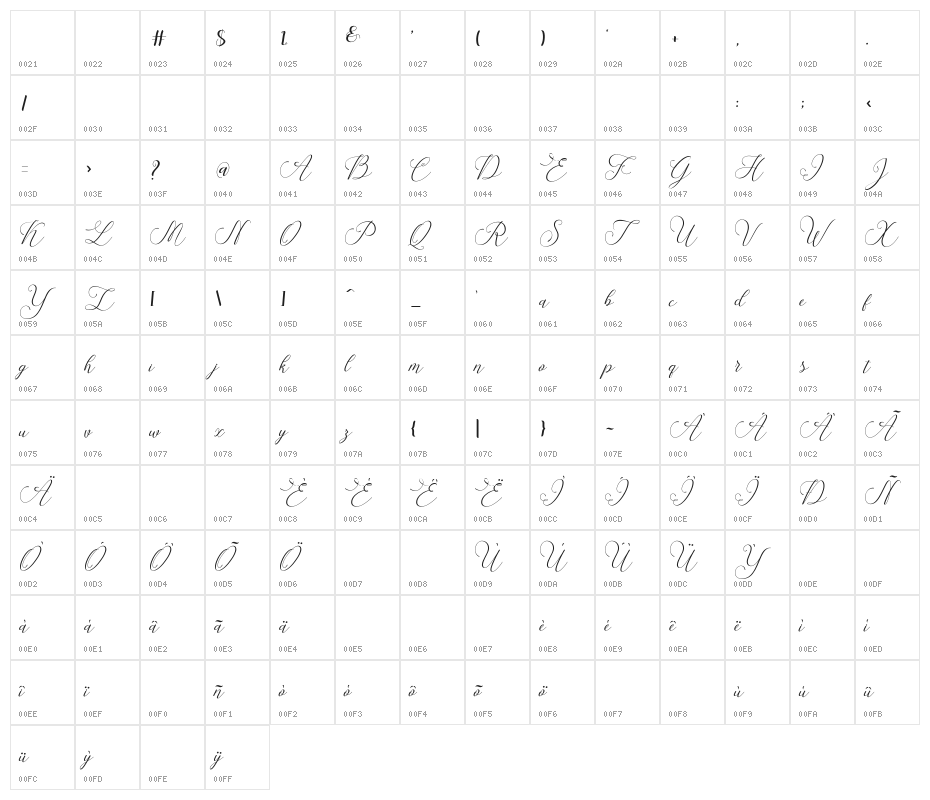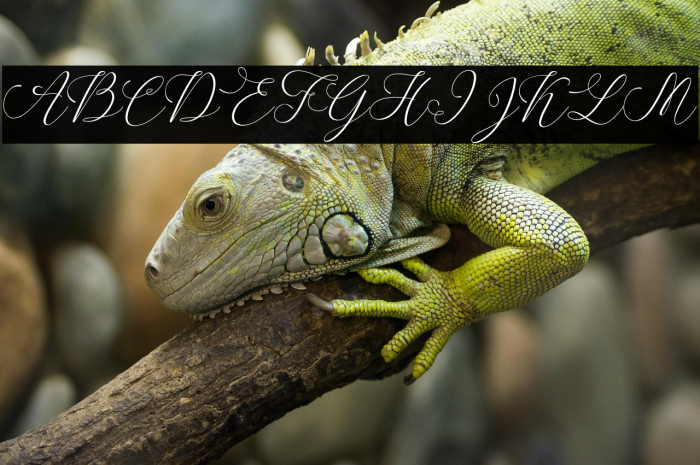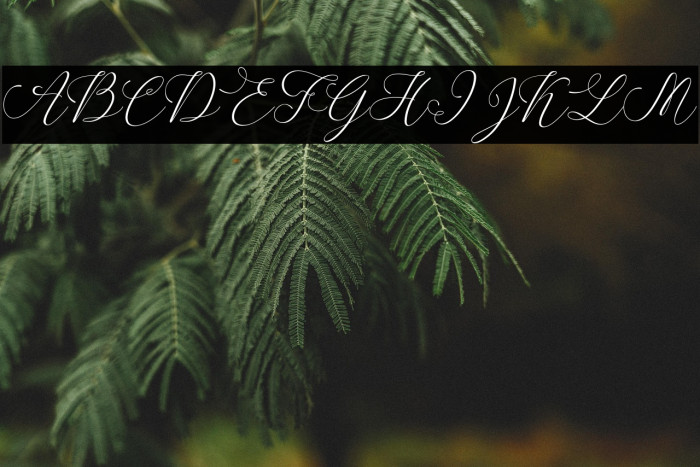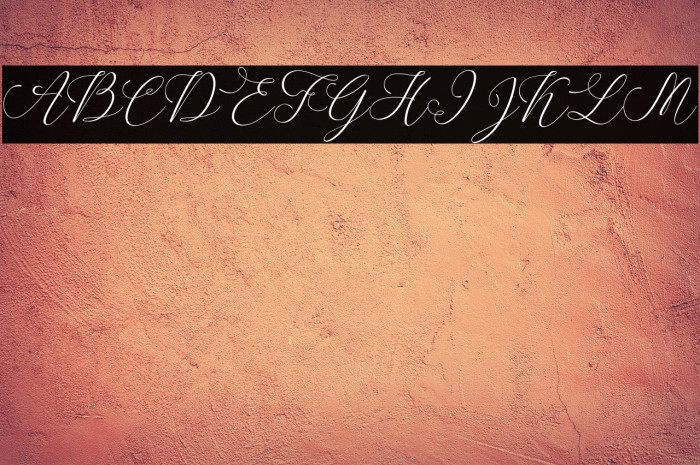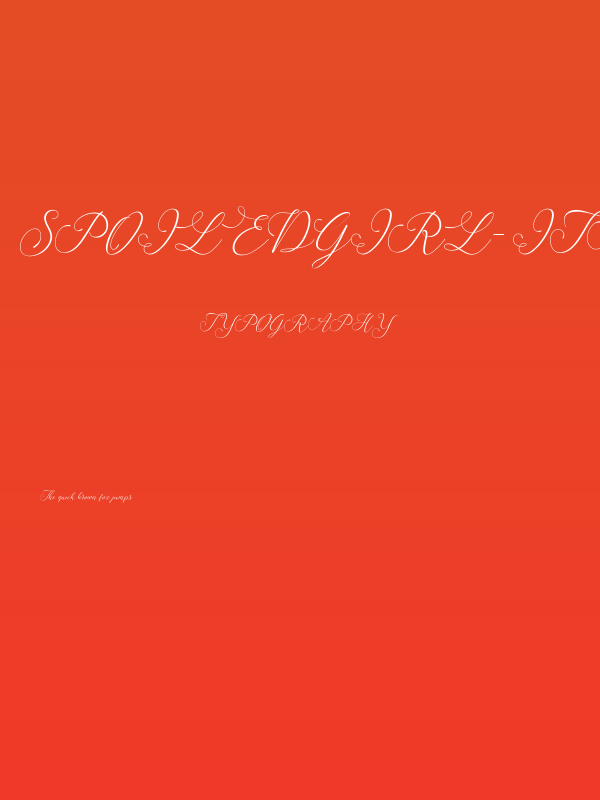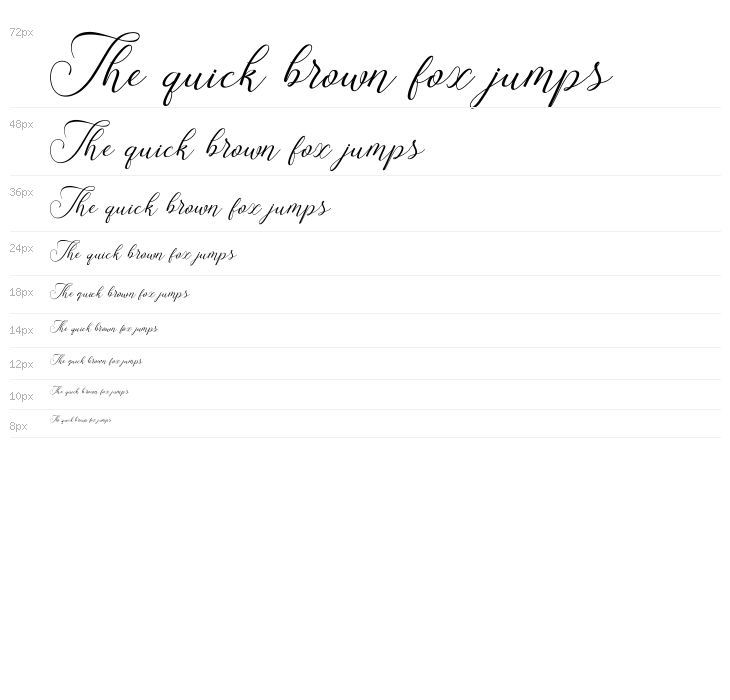
SpoiledGirl-Italic Font
SpoiledGirl-Italic Description
This elegant script font features a flowing, cursive style with delicate, swirling strokes that give it a sophisticated and graceful appearance. The uppercase letters are ornate, with intricate loops and flourishes, while the lowercase letters maintain a consistent, smooth flow. The font exudes a sense of elegance and refinement, making it ideal for formal invitations, wedding stationery, and high-end branding. The characters are well-spaced, allowing for readability despite the decorative nature of the font. The special characters complement the overall style, adding a touch of whimsy and charm.
| Overall Style | Elegant, Decorative |
| Use Case | Invitations, Branding, Stationery |
| Proposed Projects | Ideal for wedding invitations, luxury branding, formal event programs, and elegant stationery. |